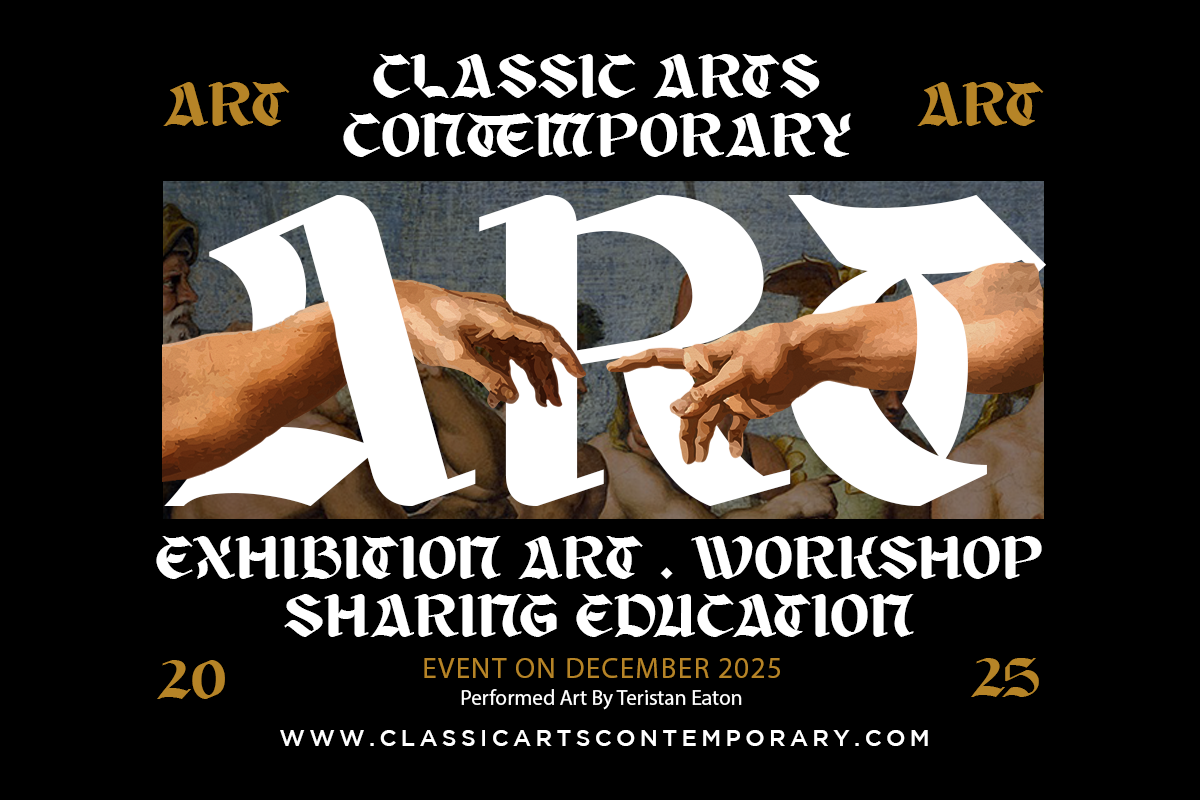
Type "gothic font" into a search bar and you get two things that help nobody. First, a wall of Unicode copy-paste generators pumping out fake bold-fraktur characters with no kerning, no hinting, and no typeface behind them. Second, a history lesson about how blackletter began with Gutenberg in the 15th century. When a record label brief lands with "something gothic" scrawled in the notes, or a streetwear drop needs blackletter that won't read like a Halloween storefront banner, neither of those is any use to you.
"Gothic" has become a lazy umbrella for anything dark and Old English-shaped. Blackletter is the craft discipline underneath it: broken strokes, angular arches, dense woven texture, a specific historical structure that type designers are currently reviving, stripping back, eroding, and hybridising for completely different jobs. Knowing which face survives a hoodie print at small scale, and which one holds a tracklist at 8pt, is what separates a working designer's choice from a template pick. If you want the deeper breakdown of the structural mechanics, we got into what makes a gothic typeface work separately. Here are eight faces running the full distance from manuscript craft to distorted contemporary output.
Caatingal by Say Studio
Built by Say Studio with one foot in medieval manuscripts and Renaissance calligraphy, Caatingal is the closest thing here to blackletter played with a straight face. It ships in Regular and Italic, and the Italic matters: a genuine cursive companion is rare in display blackletter, and it opens up pairings most single-style faces can't touch. Over 20 alternate characters and 27 ligatures give you enough control to draw a wordmark that reads as hand-lettered calligraphy. Multilingual support, numerals and symbols round it out. Point it at luxury logos, editorial headlines, book covers, wine labels and certificates where the letterforms need to carry authority without a wink.
Barklise Modern Blackletters by Amorfatype Studios
Old-world calligraphy is the starting point for Amorfatype Studios' Barklise, but the construction is sharpened for now: pointed terminals, edgy character shapes, and a balanced rhythm that keeps the density readable across a long word. It comes in OTF, TTF and WOFF with web fonts included, alongside ligatures and stylistic alternates. This is the face for branding, album artwork, tattoo-inspired layouts, fashion labels and posters where you want the heritage bones but a contemporary edge on every terminal.
CS Hustle by Craft Supply Co
CS Hustle from Craft Supply Co is a contemporary take on traditional Gothic blackletter, and it's the one that pulls ahead for identity work. The angular letterforms and bold strokes keep the gothic weight, but the cleaner lines and structured forms mean it holds up on packaging and streetwear without collapsing into noise. This is the refined, stripped-back option for branding, poster work, merch and logo design where you need the discipline but not the ornament.
Runecrest by Vadova Studio
Sharper and more ornamental, Runecrest by Vadova Studio leans into the dramatic end of the structure without losing its footing. The angular strokes carry ornamental detailing, and the contemporary spacing keeps the whole thing legible where a denser historical face would clog up. It covers uppercase, lowercase, numerals and punctuation, and ships in TTF, OTF and WOFF. Built with music artwork, posters, logos and editorial headlines in mind, it sits at the point where blackletter starts working for record sleeves rather than book plates.
Gausts by Riff Type
Erosion is the whole move with Gausts from Riff Type. Sharp gothic arches meet deliberately fractured, degraded edges, giving you a high-contrast display face that reads like it's been photocopied to death and screen-printed over. It's a single weight, delivered as a ZIP with TTF, OTF, WOFF and WOFF2. This is the horror-adjacent, underground end of the spectrum: band merch, hardcore and metal sleeves, gig posters, anything demanding historic authority with a layer of grime on top. Pair it with real paper grain and it stops looking like a font and starts looking like an artefact. If that's your lane, we've got plenty more grit worth digging into. We put eight faces through the same kind of punishment in our gothic fonts for streetwear and merch, checking which ones hold their edges under a screen print instead of turning to mush.
Rackbit by Griyotype
Griyotype's Rackbit is the sharpest proof of the whole argument, running a centuries-old letterform structure through an entirely unrelated visual system: pixels. Gothic-inspired shapes rebuilt with retro-tech, low-res detailing, so blackletter's broken strokes become stepped and blocky without losing the underlying skeleton. That translation only works if you understand blackletter's bones well enough to reconstruct them on a grid, and Rackbit does. It carries multilingual support, alternate characters and standard ligatures. Aim it at gaming graphics, esports branding, apparel, logos and posters where medieval texture and digital culture need to sit in the same wordmark.
Bitblast by Edignwn Type
A full apparel and identity system needs more than one headline face, which is where Edignwn Type's Bitblast earns its place. It's a duo: a serif italic carrying sharp gothic detailing, and a condensed sans built as a glitch-driven companion. Each has a clean regular and a textured variant, so four font files in total, giving you a crisp version for small sizes and a distressed one for impact. It covers uppercase, lowercase, numerals, symbols and punctuation with multilingual support, and it's PUA encoded so the alternate glyphs are reachable. The dark, degraded, early-2000s streetwear feel makes it a strong base for logos, apparel, posters and bold identity work that needs two voices instead of one.
Butterfly Culture by The Branded Quotes
Blackletter never left tattoo culture, album art and streetwear graphics; those were its holdout territories long before the current neo-goth wave. Butterfly Culture by The Branded Quotes ties that whole lineage back together in one dual-font system. Drawing on Eurotrash, cybersigilism and neobrutalism, its line style is built to simulate tattoo stencil output: gritty, raw, and deliberately imperfect. The Script runs a flowing linework structure while the all-caps Serif pushes the same stencil texture into bold, commanding capitals, so you can move from a flowing tag to a hard headline inside a single identity. It carries a basic English character set, punctuation and numerals, and covers branding, streetwear, album art, merch, editorial and book covers. Of everything here, it's the face that reads most like ink on skin, which is precisely the job it's built for. That gritty, stencil-simulated finish is exactly the territory our guide to grunge letters covers in more depth.